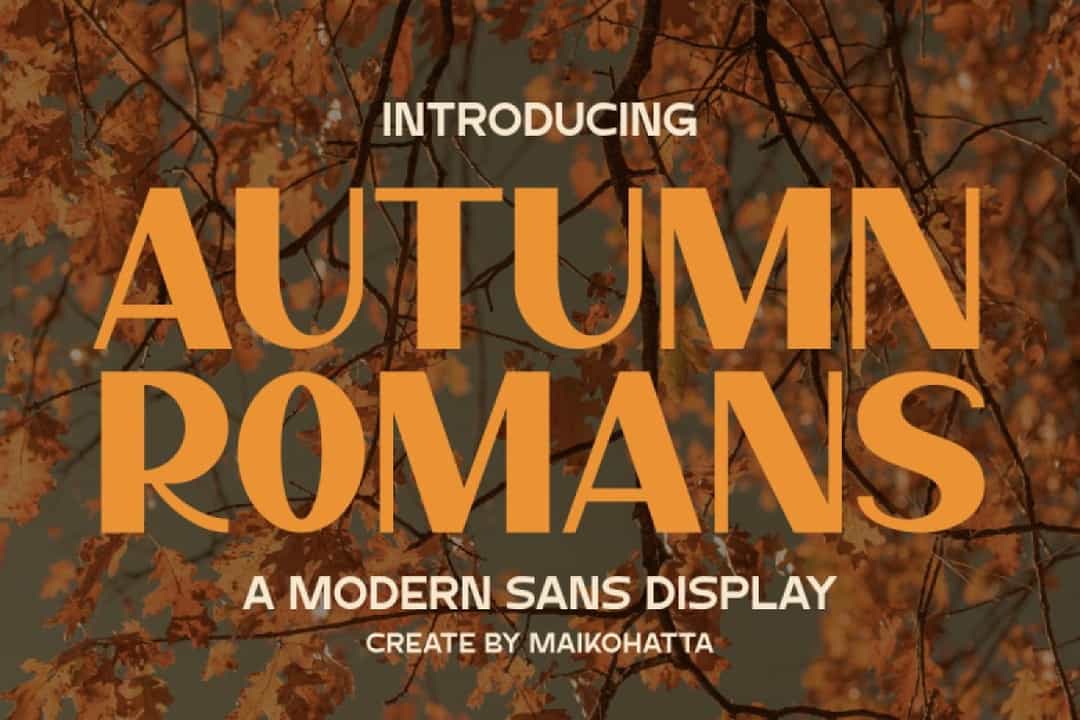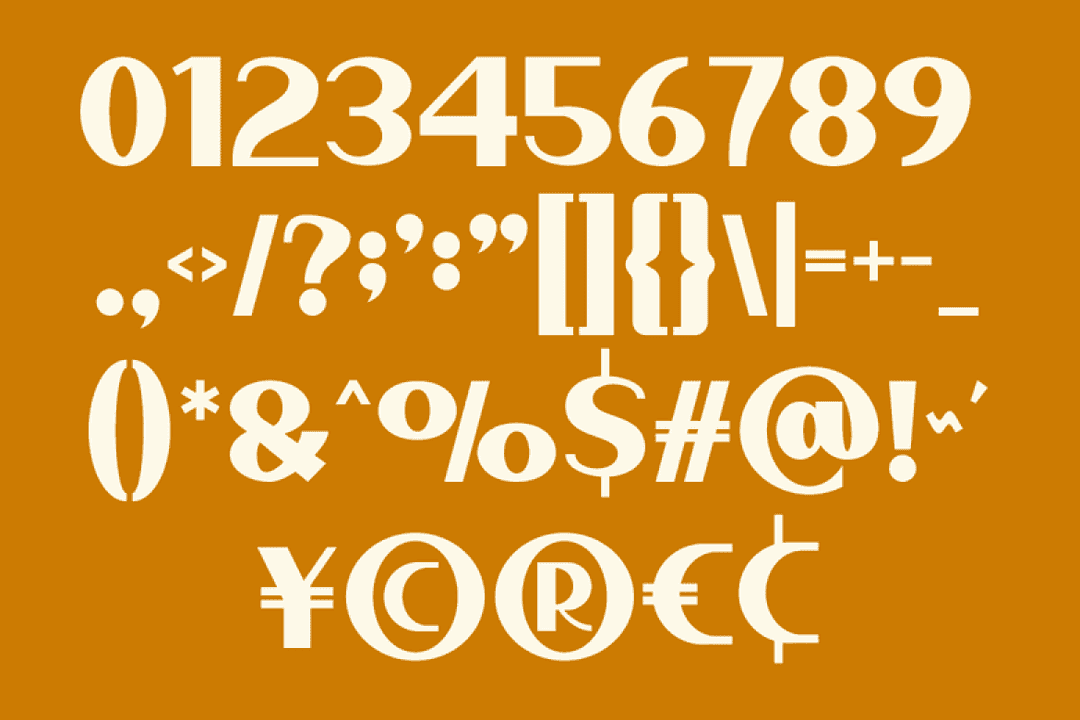
Autumn Romans font is designed to evoke feelings of nostalgia while also recalling nature’s beauty as leaves turn color. Delicate lines and soft curves enhance letters, creating an air of calmness. Autumn Romans is ideal for projects seeking to convey autumn’s splendor and magnificence.